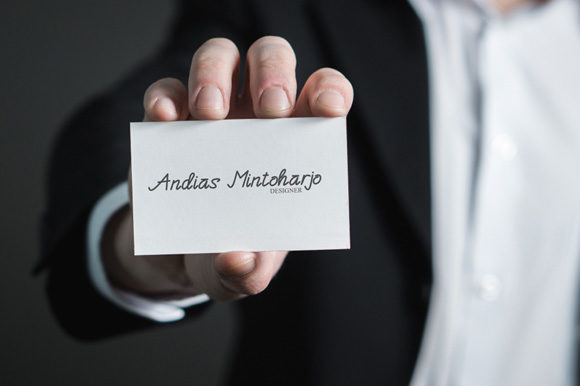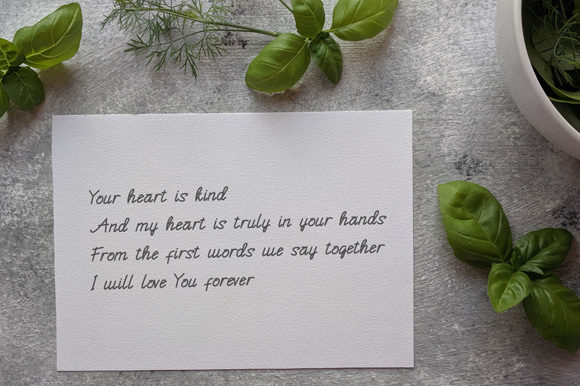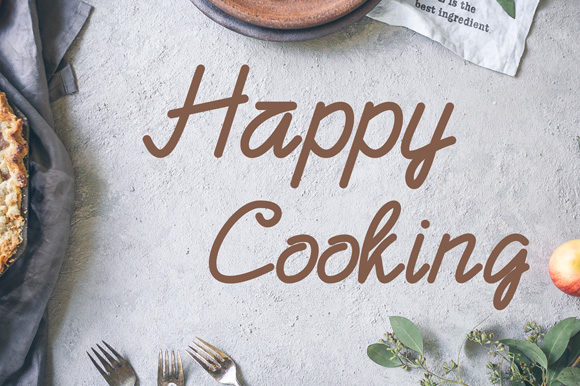
Introduction to Enphand Font
Enphand is a stylish and charming handwritten font with a contemporary touch.
This will add a unique spin to each design project .
Key Features of Enphand Font
Why Choose Enphand Font?